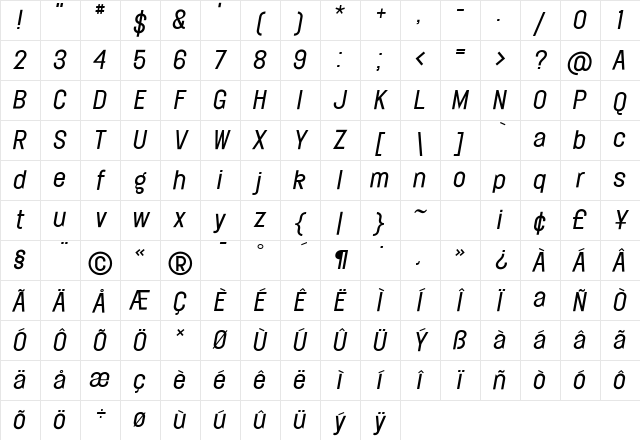
Elephant Regular
Design Context for Elephant
Elephant is a composed and adaptable typeface that performs quietly and consistently across a wide range of design contexts.
Pro Tip: Use Elephant in both headline and body roles to test its range before committing to a single application.
Who designed the Elephant Regular font?